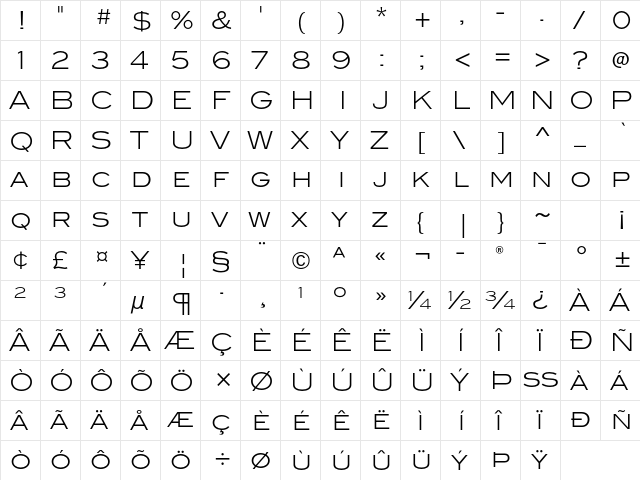
Blair ITC Std Light
| Designer | Jim Spiece |
Design Context for Blair ITC Std Typeface
Blair ITC Std offers clean, dependable letterforms without strong stylistic allegiance, making it a practical choice for designers who need flexibility. The delicate stroke weight brings airiness and refinement to layouts.